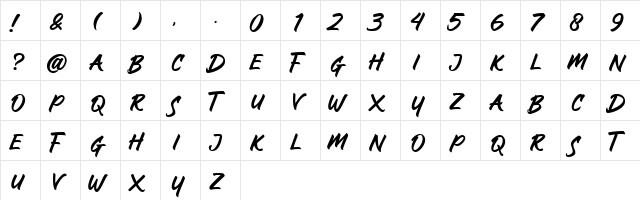
Faester Regular
| Designer | Ali Hamidi |
Design Context for Faester Typeface
Faester is a composed and adaptable typeface that performs quietly and consistently across a wide range of design contexts.